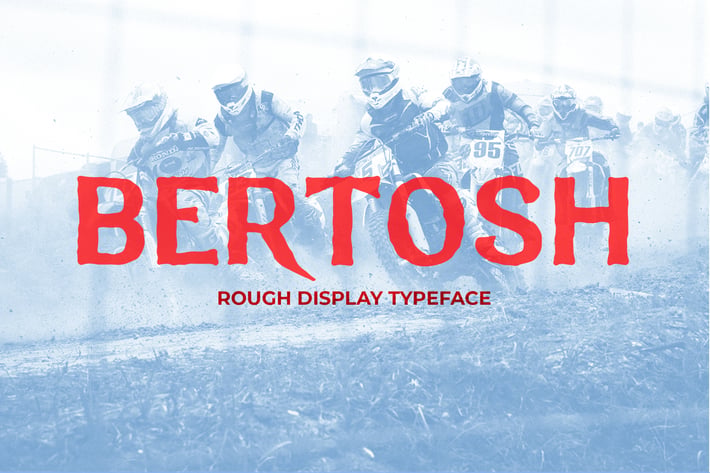
Bertosh Rough Display Typeface
Bertosh
Rough & Dirty display typeface, fit for any Headline needs, like printed design, web font, branding, logo type, and Social media promotion.\
The texture & shape reflecting a masculinity, wildness, also brave look for your designs.
Some Open Type features included, like ligatures and alternates make your design looks authentic in one simply changes from basic character then switch it to activate the feature.